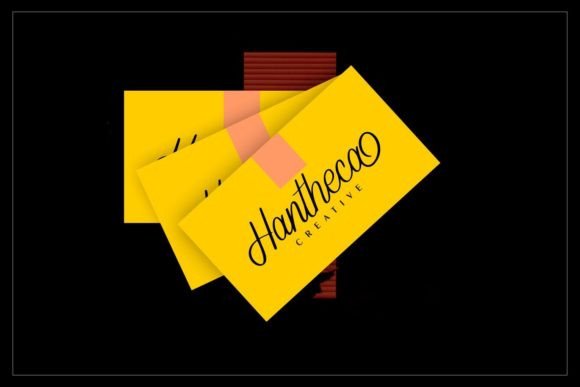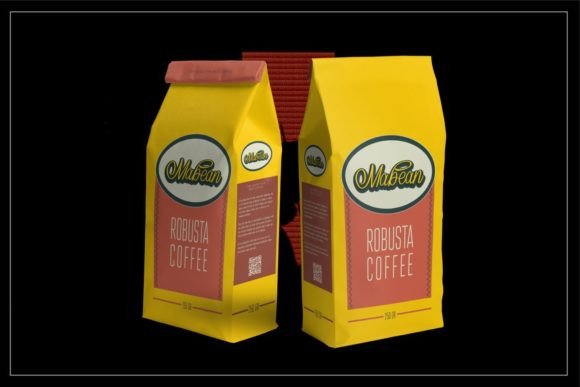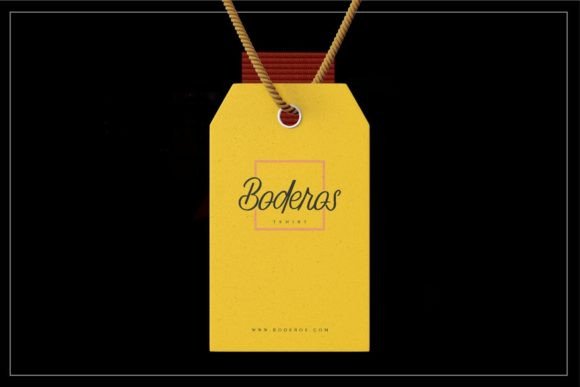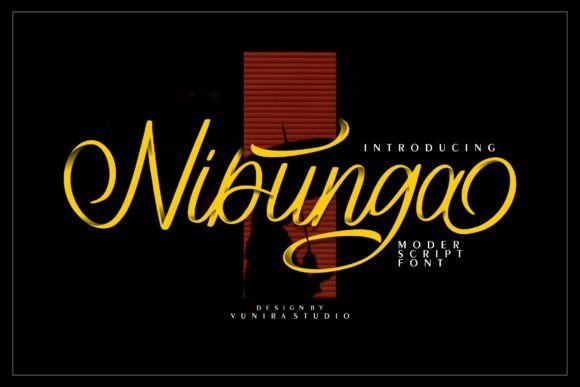
Introduction to Nibunga Font
Nibunga is a modern script font with a calligraphy style.
It will look so beautiful on invitations, greeting cards, branding materials, business cards, quotes, posters, and more .
Why Choose Nibunga Font?